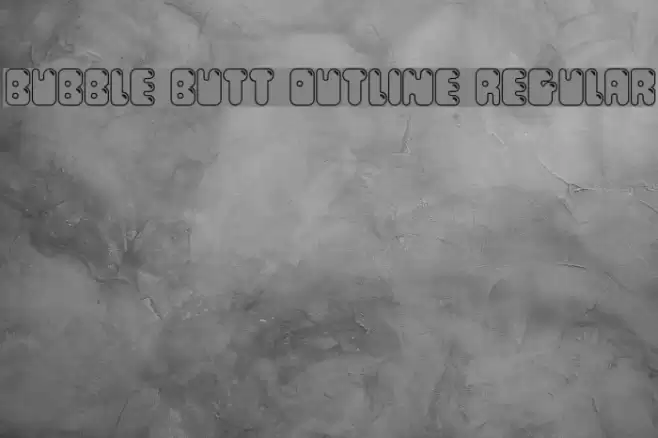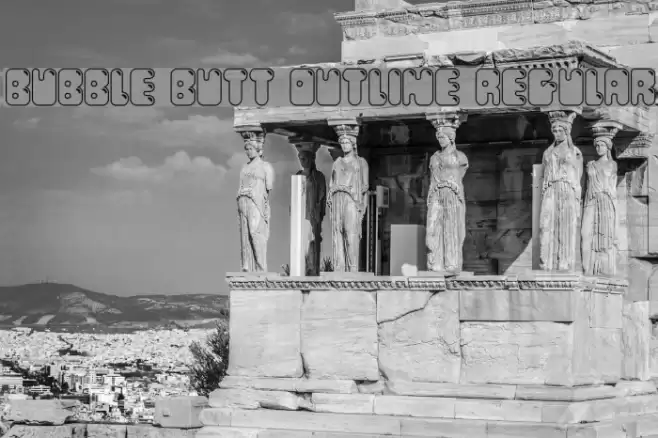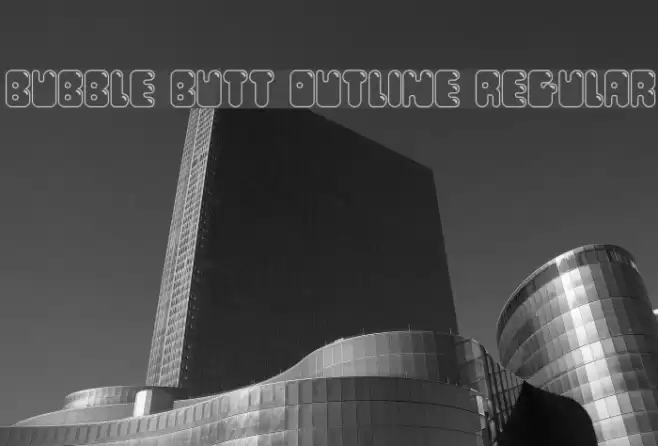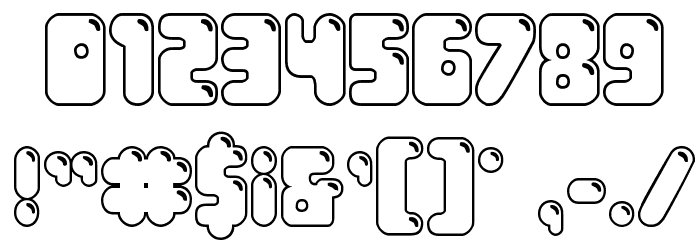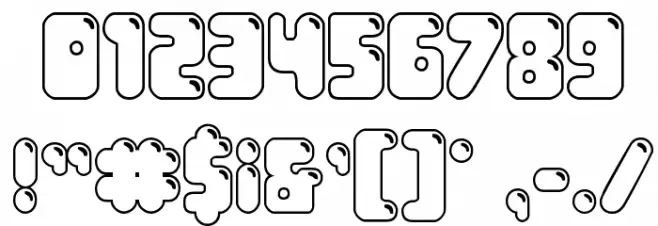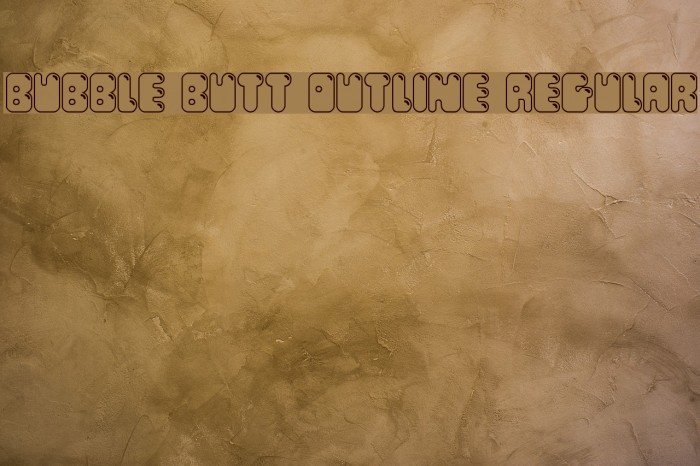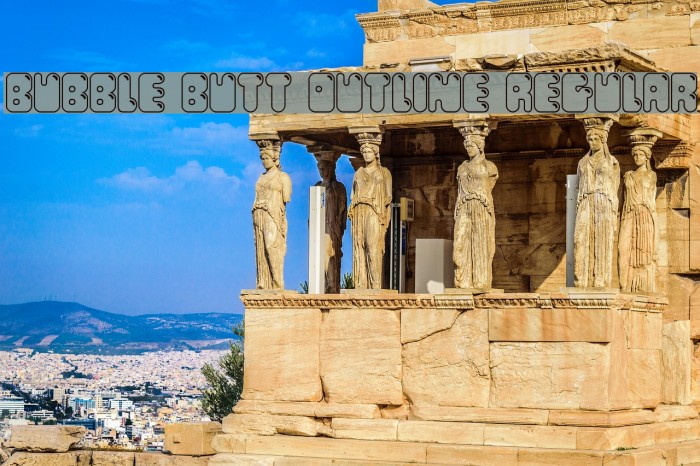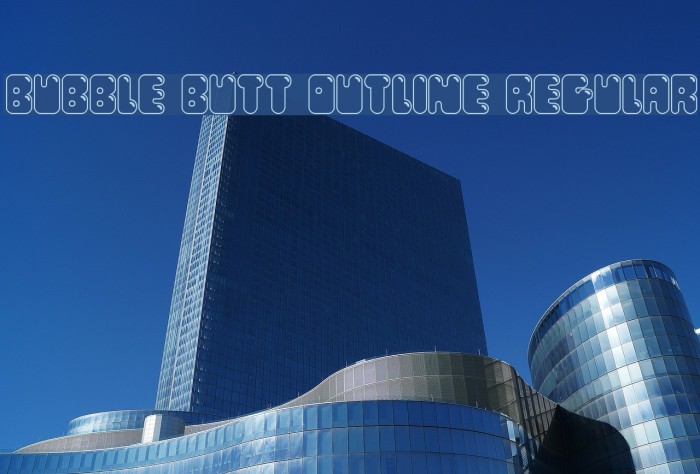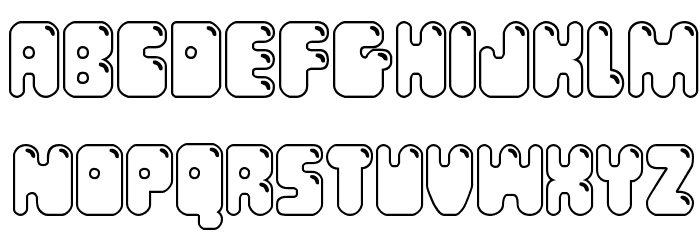
Bubble Butt Outline Regular Font
Bubble Butt Outline Regular Description
This playful and bold font features an outline style with rounded, bubble-like characters that give it a fun and whimsical appearance. The letters are evenly spaced and maintain a consistent thickness throughout, creating a cohesive look. The font's unique design includes rounded edges and a soft, approachable aesthetic, making it ideal for projects that require a friendly and inviting tone. The outline nature of the font allows for creative use of color and background, enhancing its versatility in various design contexts.
A playful, bubble-like outline font with rounded edges and a whimsical style from Fancy fonts.
- Proposed Projects: Ideal for children's books, playful branding, party invitations, and creative posters.
- Overall Style: Playful, Whimsical